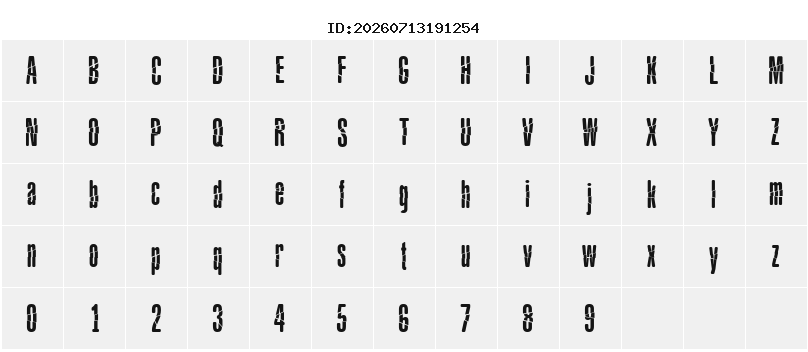
• Font Name: Babalusa Cut
• Full Font Name: Babalusa Cut
• Designer: deFharo
• Description: TipografÌa Sans Ultra comprimida con acabado redondeado. Descarga gratis la versiÛn completa de la fuente en: http://defharo.com/diseÒo-grafico/tipografia/babalusa-ultra-sans-font/ Get a free full font at defharo.com
Babalusa Cut.ttf is a modern, elegant sans-serif font designed for ultimate readability and visual harmony. Perfect for branding, headlines, web design, and print materials.